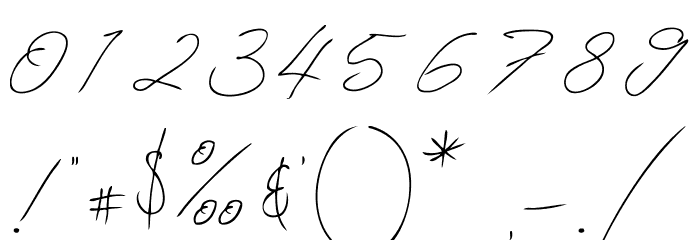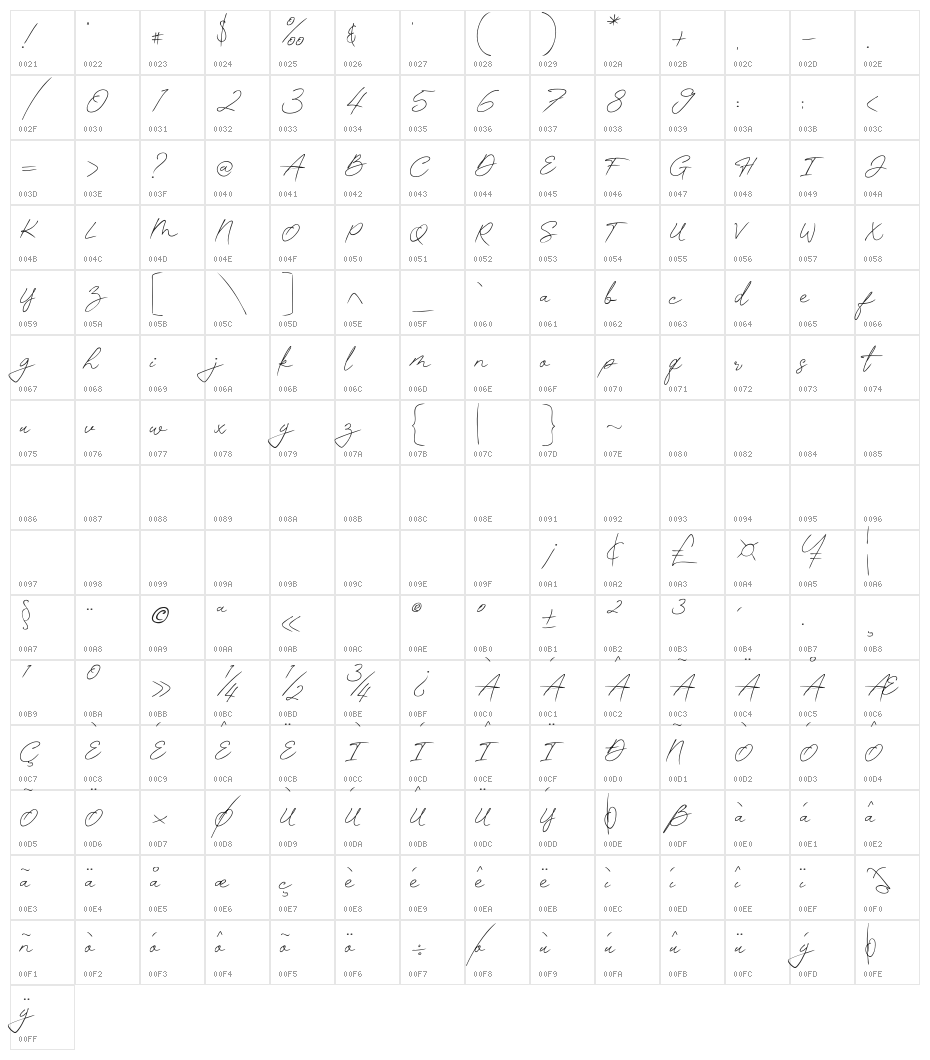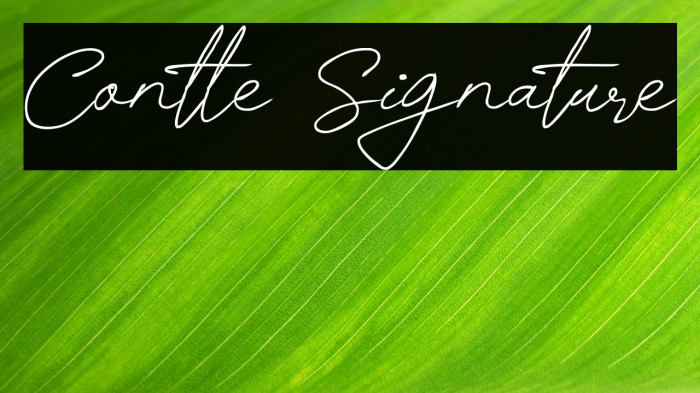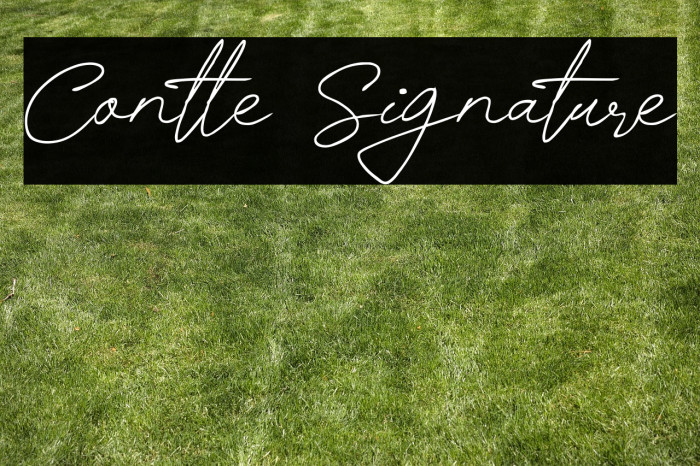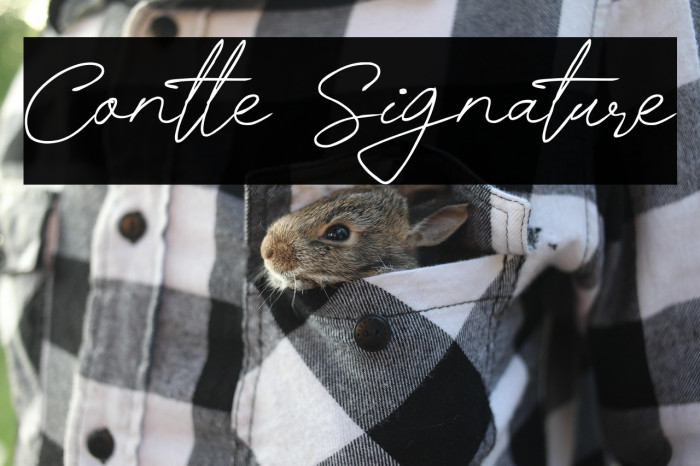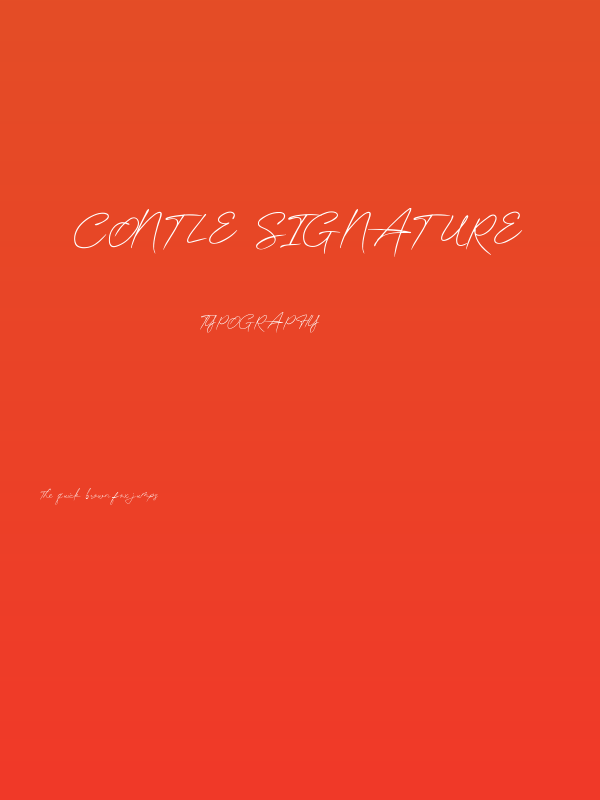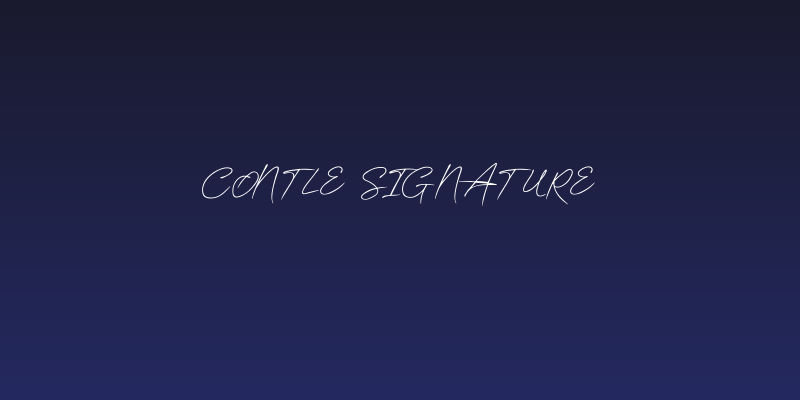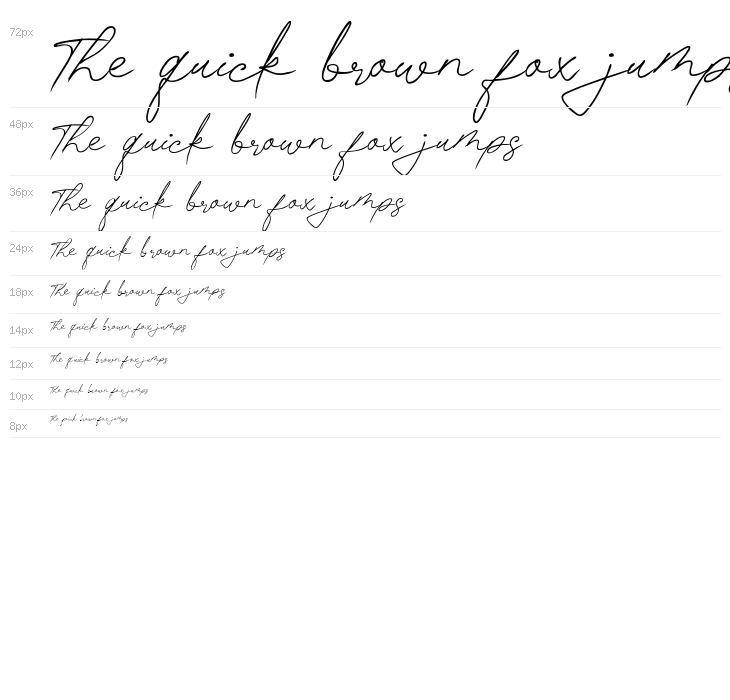
Contle Signature Font
Contle Signature Description
This font exudes a sophisticated and elegant handwritten style, characterized by its fluid and continuous strokes that mimic the natural flow of cursive handwriting. The letters are gracefully connected, creating a seamless and harmonious appearance. The uppercase letters are bold and prominent, while the lowercase letters maintain a delicate and refined look. The numerals are consistent with the overall style, featuring smooth curves and a balanced structure. Special characters are thoughtfully designed to complement the script, adding versatility to the font. This font is perfect for projects that require a personal and artistic touch, such as invitations, branding, and signature logos.